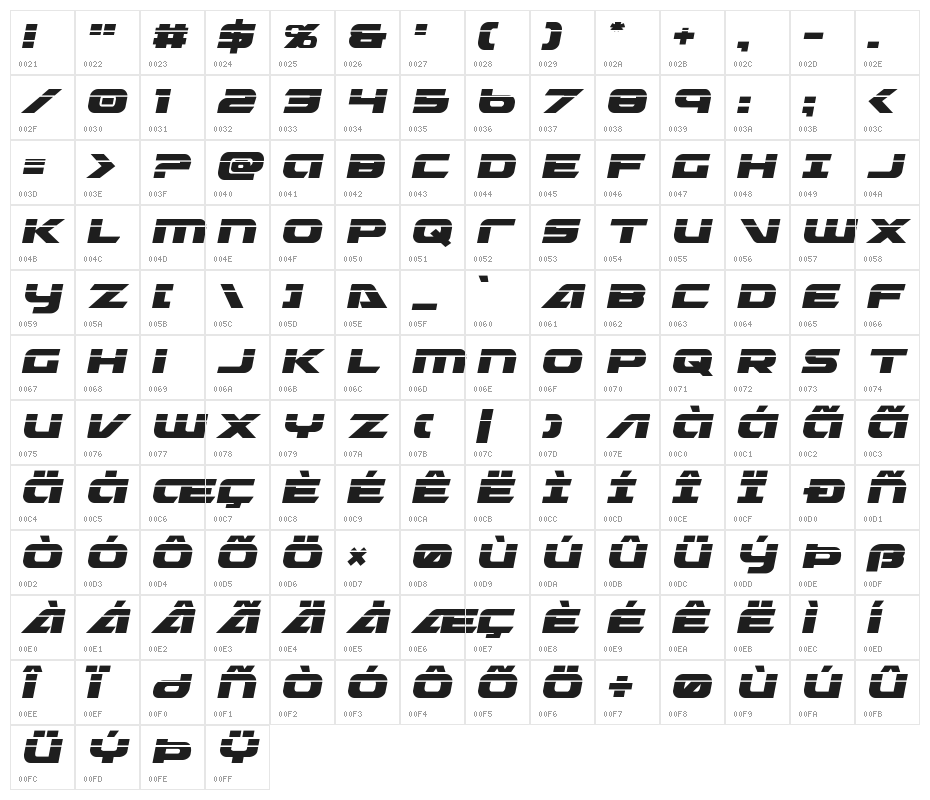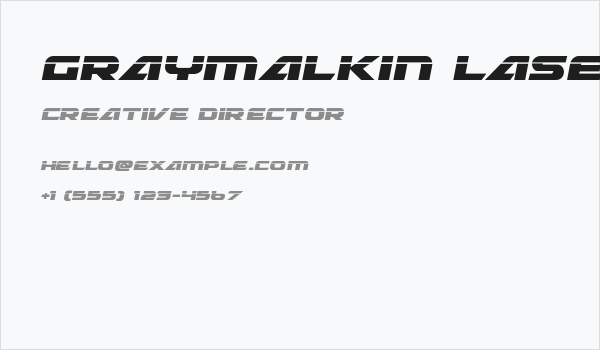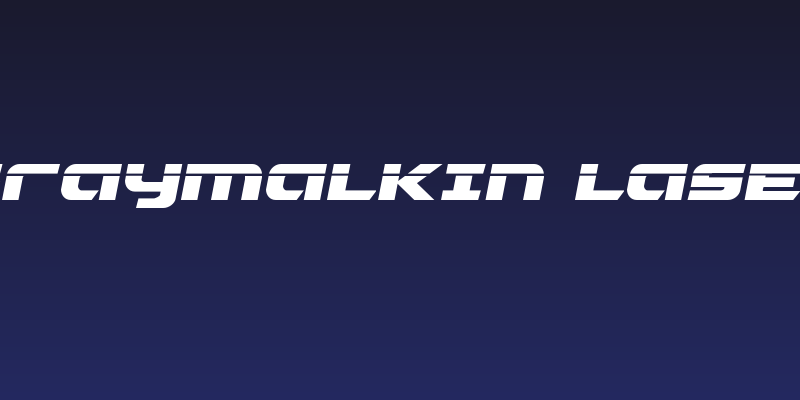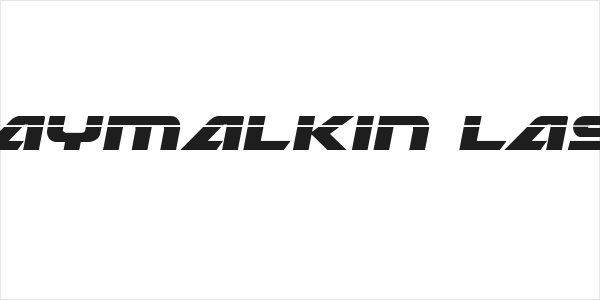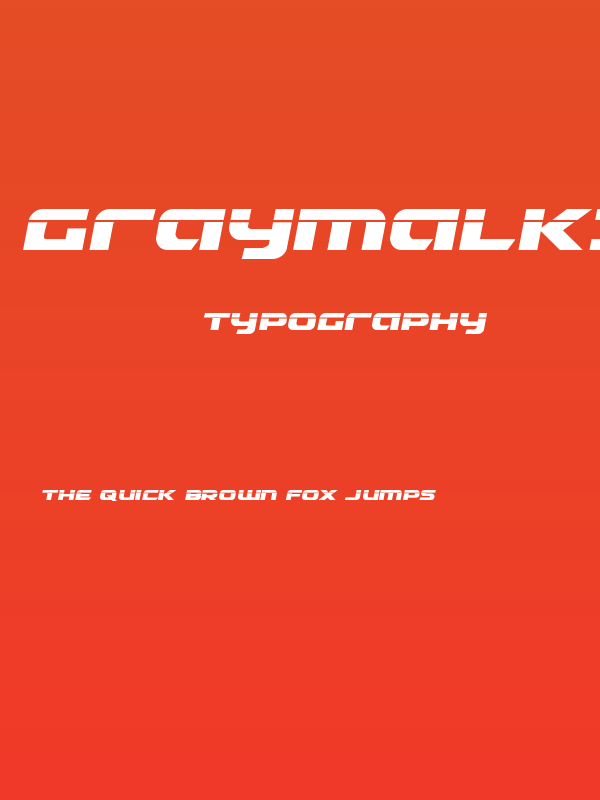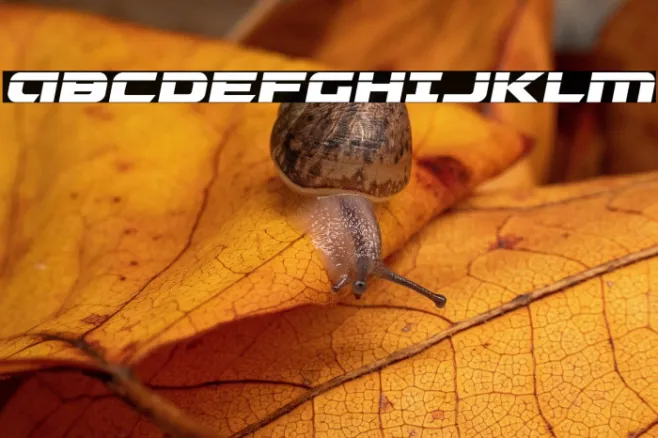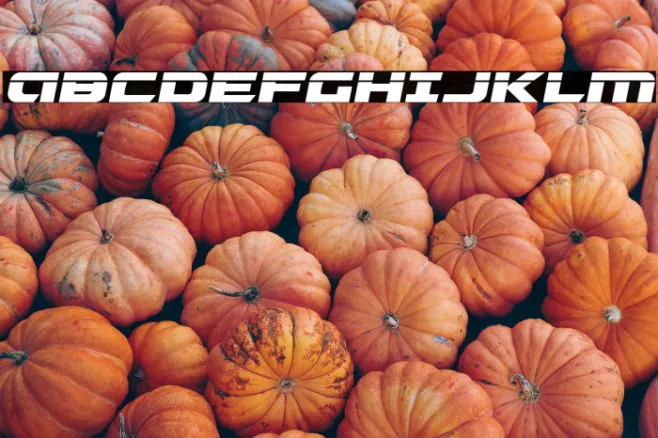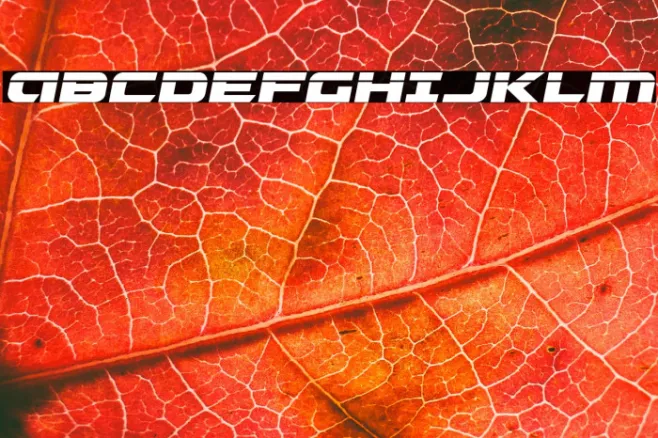
Graymalkin Laser Font
Graymalkin Laser Description
This font features a futuristic and dynamic design with sharp, angular edges and a bold presence. The characters are slightly slanted, giving a sense of motion and speed. The uppercase and lowercase letters maintain a consistent style, with the lowercase being slightly smaller but equally impactful. Numbers and special characters follow the same aesthetic, ensuring uniformity across all elements. The font's geometric shapes and clean lines make it stand out, ideal for projects that require a modern and edgy look.